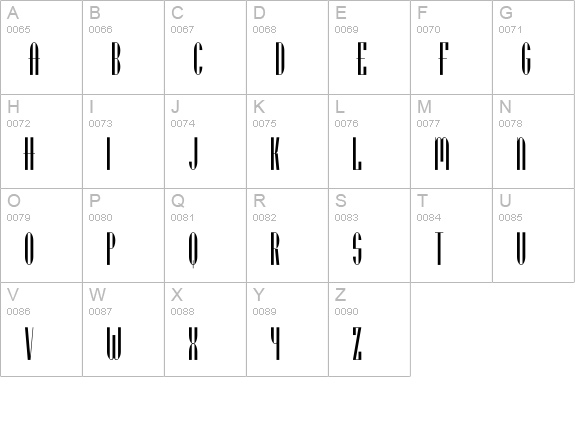
Utusi Star Normal Font Details
Utusi Star Normal is the standard, neutral variant in the Utusi typeface family \xE2\x80\x94 well suited to general body text, paragraphs, and standard typographic work.
Utusi Star Normal is a beautifully designed font that exudes elegance and style. With its clean lines and smooth curves, this font is perfect for adding a touch of sophistication to any project. Whether you're designing a logo, creating a website, or working on a professional presentation, Utusi Star Normal will make your text stand out. One of the best things about Utusi Star Normal is that it is completely free. Yes, you read that right - you can download this amazing font for free at FontsMarket.com. This means that you can enjoy all the benefits of this stunning font without having to spend a single penny. Not only is Utusi Star Normal free, but it is also incredibly versatile. It can be used for a wide range of design projects, from advertising and branding to social media graphics and print materials. Its timeless appeal and classic look make it a go-to choice for designers of all levels. The attention to detail in Utusi Star Normal is truly remarkable. Each letter has been carefully crafted to ensure that it maintains its clarity and legibility, even at smaller sizes. This means that your text will always look sharp and professional, no matter how it is used. So why wait? Download Utusi Star Normal today and elevate your design projects to new heights. With its free availability at FontsMarket.com, there's no reason not to add this stunning font to your collection. Don't miss out on the opportunity to enhance your designs with the elegance and style of Utusi Star Normal.